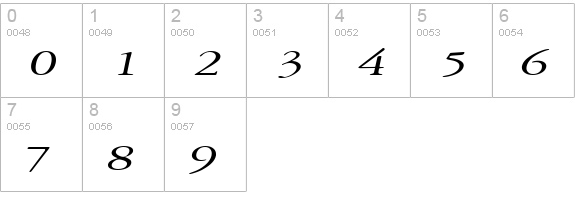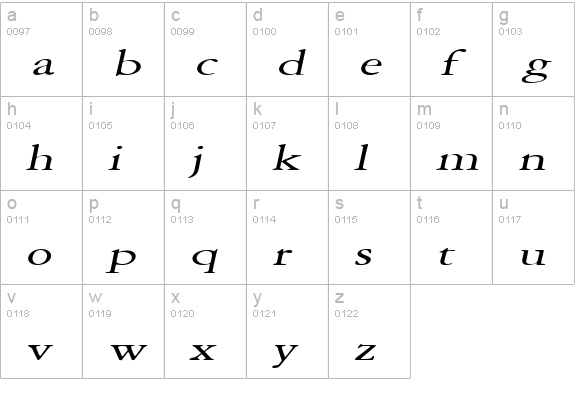
Amery Extended Italic is a distinctive, extended-width, italic variant in the Amery typeface family \xE2\x80\x94 well suited to design and typography projects.
Amery Extended Italic font is a stylish and elegant typeface that exudes sophistication and modernity. Its sleek and flowing design adds a touch of sophistication to any project, making it perfect for branding, editorial design, and more. The italic style of the font gives it a dynamic and energetic feel, making it stand out in any application. What makes Amery Extended Italic font even more appealing is that it is available for free download at FontsMarket.com. This means you can access this high-quality typeface without any cost, making it a valuable addition to your font collection. Whether you're a designer looking to add a unique touch to your projects or a business owner wanting to elevate your brand, Amery Extended Italic font is a versatile choice that won't disappoint. Download it now and start creating stunning designs with this beautiful and free font.